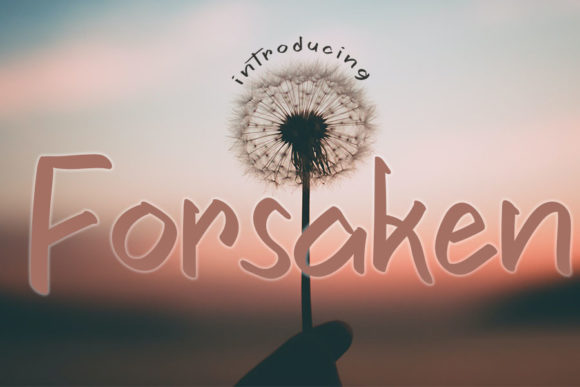
Prepare to be captivated by Forsaken, a handwritten font that exudes an enchanting allure. Its graceful strokes emanate elegance, while its modern flair infuses your designs with contemporary charm. Let Forsaken elevate your Instagram username to new heights, captivating followers with its captivating presence.
Unleash your creativity with Forsaken, the perfect companion for branding, invitations, social media posts, and more. Its versatility empowers you to transform any project into a masterpiece, leaving an unforgettable impression on your audience.
Indulge in the beauty of Forsaken and watch as your projects blossom into extraordinary creations. Let its refined lines and captivating curves enchant your audience, drawing them into a world of imagination and inspiration. With Forsaken, the possibilities are endless, as it empowers you to turn your creative visions into a captivating reality.
Prepare to be mesmerized by the exquisite artistry of Forsaken. It will seamlessly intertwine with your design concepts, enhancing their visual appeal and leaving a lasting impact on your audience. Its versatility makes it an indispensable tool for any designer seeking to elevate their work and captivate the hearts of their viewers.
Don't resist the allure of Forsaken. Embrace its enchanting charm and watch as your projects transform into captivating masterpieces. Let its beauty inspire your creativity and unlock the true potential of your designs.